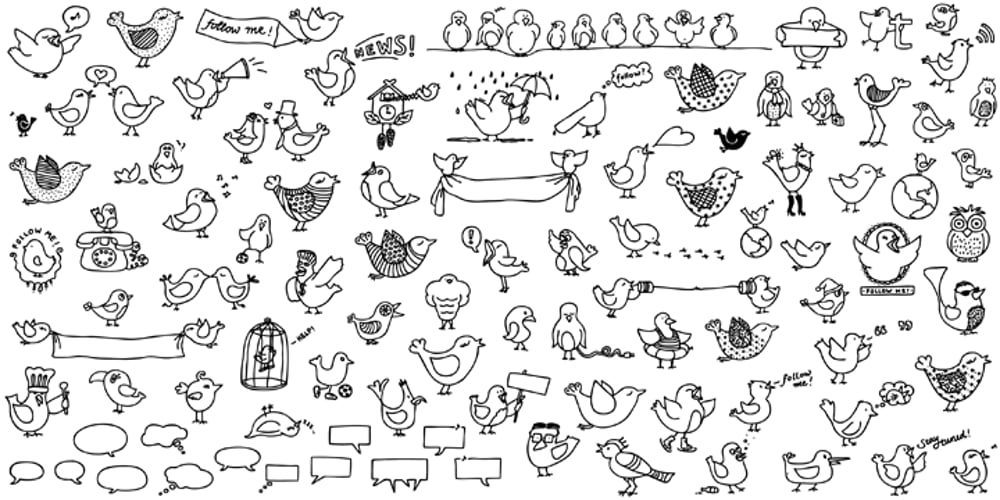
LiebeTweet Font Family was designed by Ulrike Rausch and published by LiebeFonts. LiebeTweet contains 1 styles and family package options. LiebeTweet gives you countless variations of cute birds to reflect personality, style or mood. Every one of these nestlings is unique and special, such as the little chef, the singer in the rain, the bridal couple, the lifeguard and many more … and of course, we did not forget to include the cuckoo clock and the owlet. Put these birdies on your website, your personal blog or your Facebook page. Or print them out on invitations and greeting cards. 90+ carefully crafted drawings are included in this single font and can be used in any text or graphics application. If you like this font, have a look at our other cute fonts such as LiebeFish and LiebeRobots.